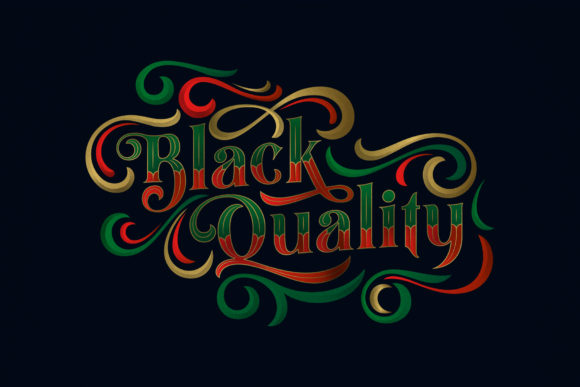
I still remember the frustration of working on a project, hours spent searching for the ideal font to bring my design concept to life. My client wanted something bold, unique, and eye-catching – a font that would make their brand stand out from the crowd. As I scrolled through font after font, I couldn’t help but feel like something was missing. That was until I stumbled upon **Black Quality**, a stunning blackletter font that instantly caught my attention.
First Impressions: A Love Affair with Black Quality
As soon as I started exploring **Black Quality**, I knew I had found something special. This beautiful blackletter font boasts an undeniable charm, with bold ornaments that add a touch of elegance to any design. Here are a few things I love about **Black Quality**:
• ✨ Unique and distinctive style that’s sure to turn heads
• ✅ Highly versatile, suitable for a wide range of design projects
• 🔥 Perfect for headlines, titles, and emphasis text
• 💡 Works beautifully in combination with other fonts
A Few Quirks to Consider
While **Black Quality** is an exceptional font, it’s not without its limitations. Here are a few things to keep in mind:
• 🤔 May not be the best choice for body text or long paragraphs
• ⚠️ Some characters may not work well at very small font sizes
The Story Behind Black Quality
While the origins of **Black Quality** may be shrouded in mystery, it’s clear that the font was designed with one goal in mind: to create a unique and eye-catching blackletter font that would inspire designers. Whether the designer drew inspiration from traditional Gothic architecture or modern calligraphy, the result is a font that’s both elegant and bold.
What type of designs is Black Quality best suited for? Black Quality is perfect for designs that require a bold, eye-catching font, such as headlines, titles, and emphasis text. It’s ideal for luxury brands, high-end designs, and creative projects.
Can I use Black Quality for body text? While Black Quality is an exceptional font, it’s not the best choice for body text or long paragraphs. Its bold, ornate design is better suited for short bursts of text.
Is Black Quality available in different weights or styles? Depending on the font package, Black Quality may come in different weights or styles. Be sure to check the font documentation for more information.